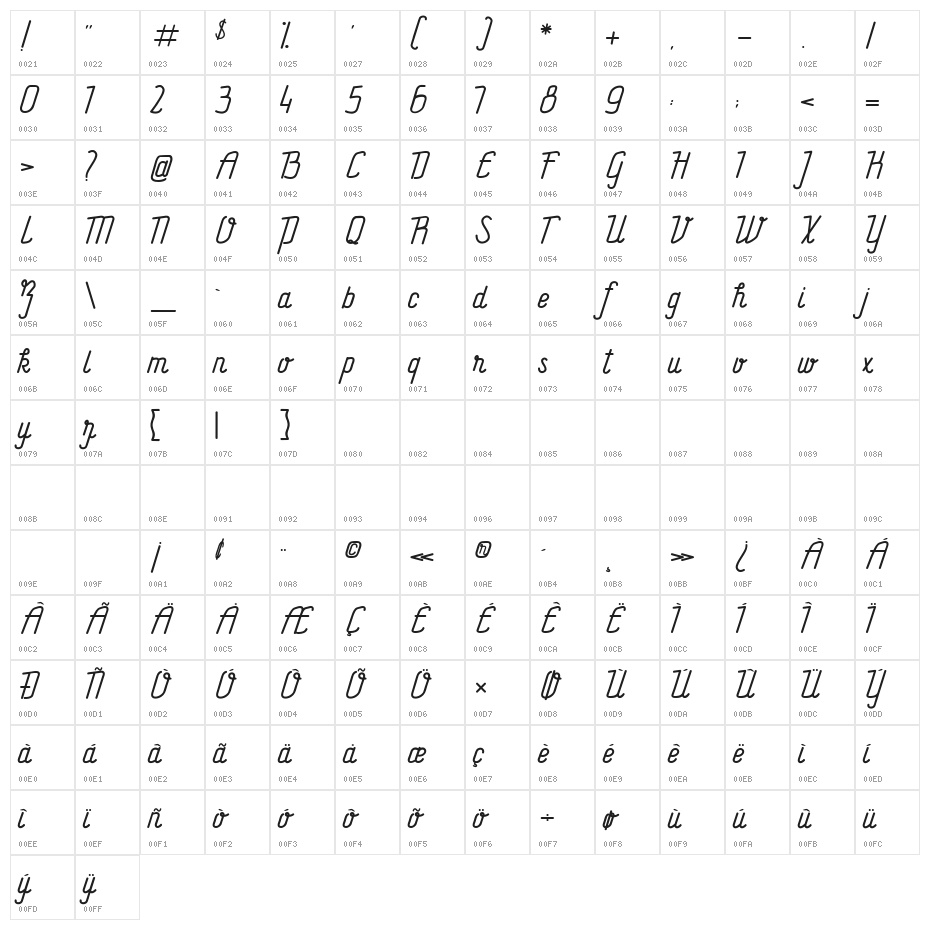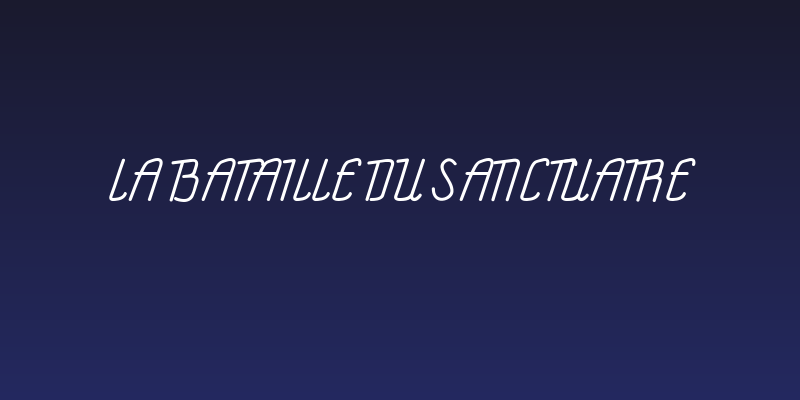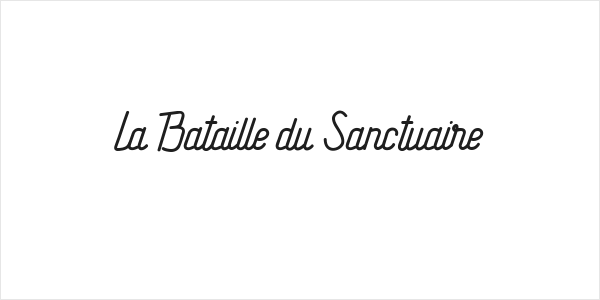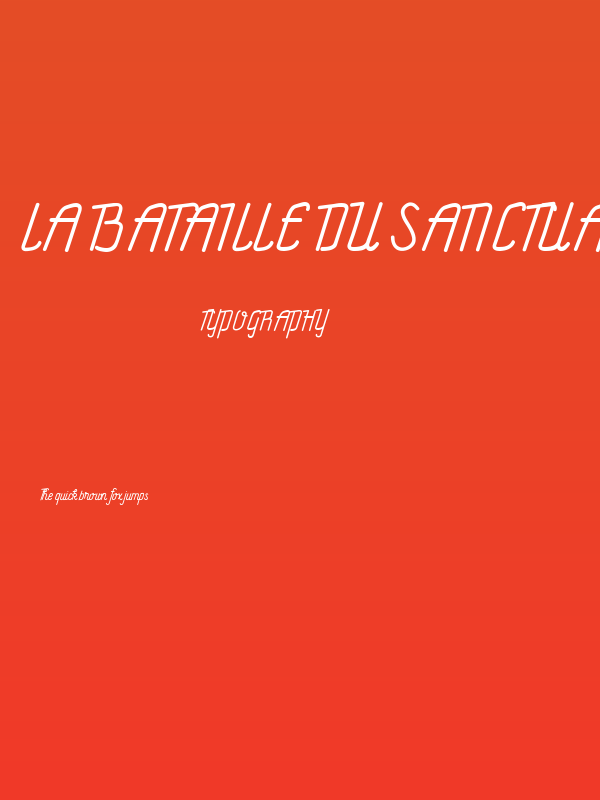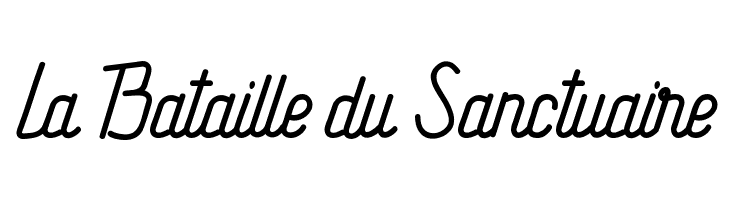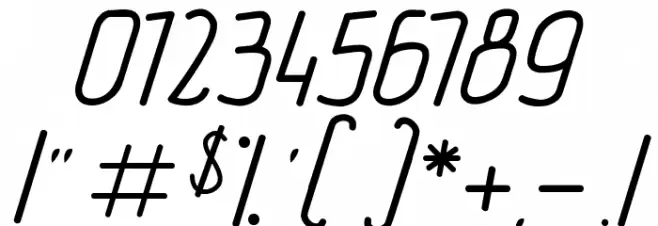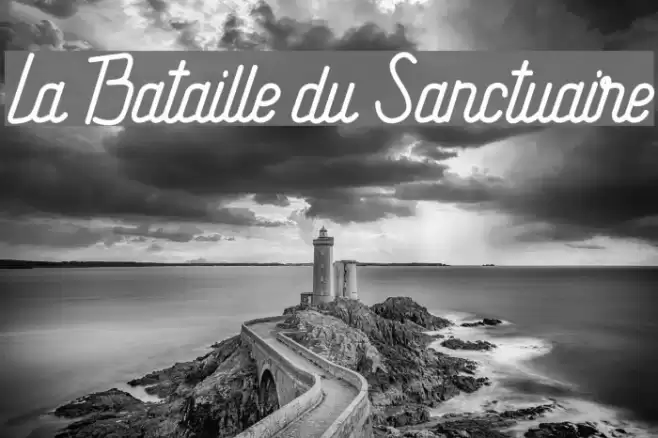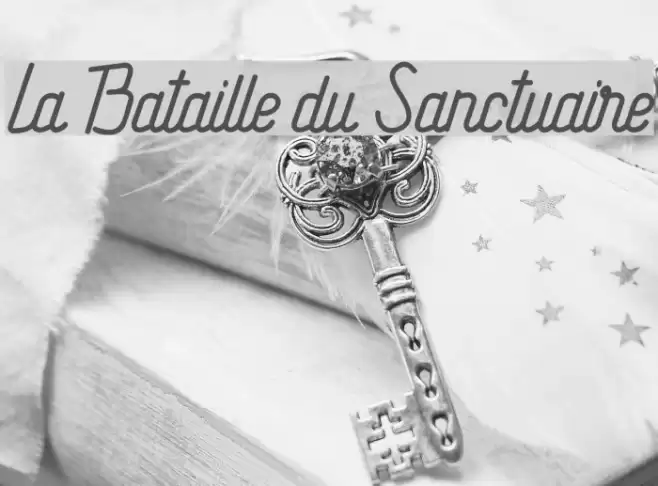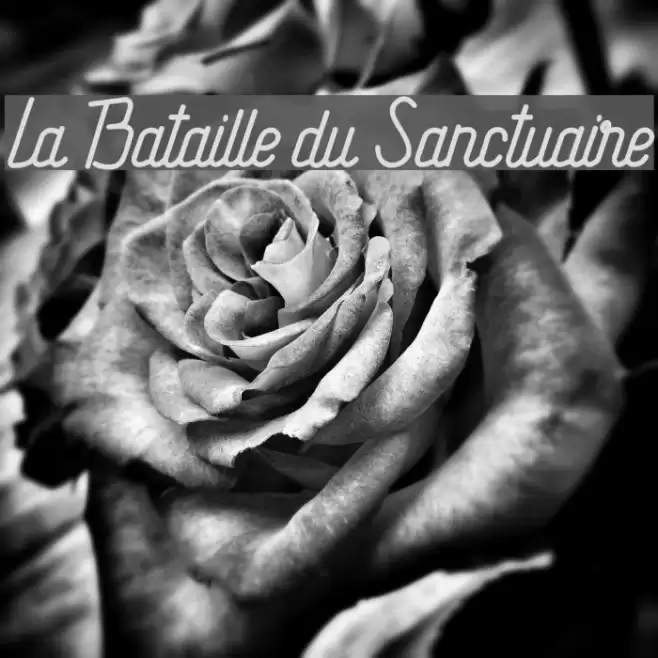
La Bataille du Sanctuaire Font
La Bataille du Sanctuaire Description
This font features a distinctive, flowing script style with a modern twist. The uppercase letters are tall and slightly condensed, with a unique angularity that adds a sense of motion and dynamism. The lowercase letters maintain a consistent flow, with smooth curves and a slight slant that enhances readability. Numbers are clear and well-defined, matching the overall style of the font. Special characters are thoughtfully designed, integrating seamlessly with the alphabetic characters. The font's elegant yet contemporary appearance makes it versatile for various design applications.
| Use Case | Logos, Invitations, Editorial Design |
| Proposed Projects | Ideal for branding, invitations, and editorial design where a modern script is desired. |